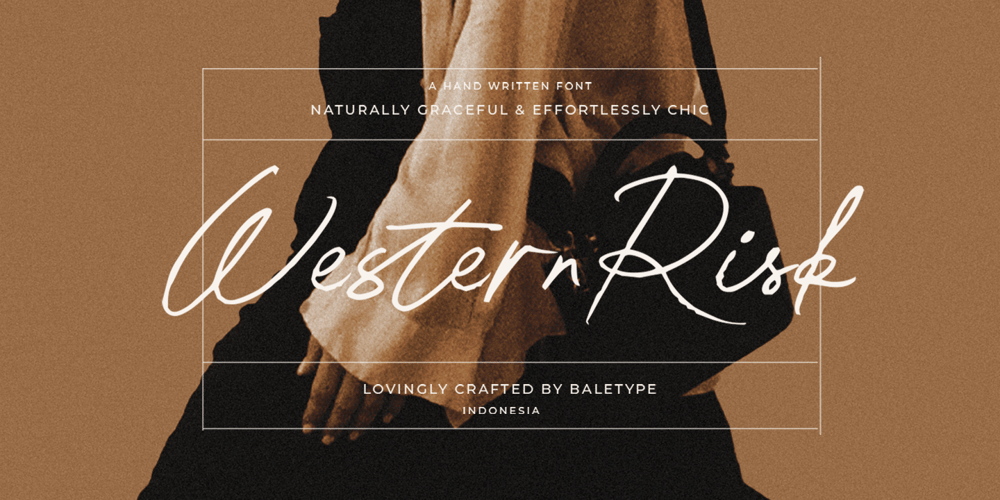
Western Risk
Western Risk font
Western Risk Font Family was designed by Sarid Ezra, Dzikrul Aulia and published by Bale Type. Western Risk contains 1 styles and family package options. Western Risk is a handwritten ligatures script with rough and natural looks. You can use this font for any purposes such as logo, branding, quote, and wedding invitations. This font also support multi language.